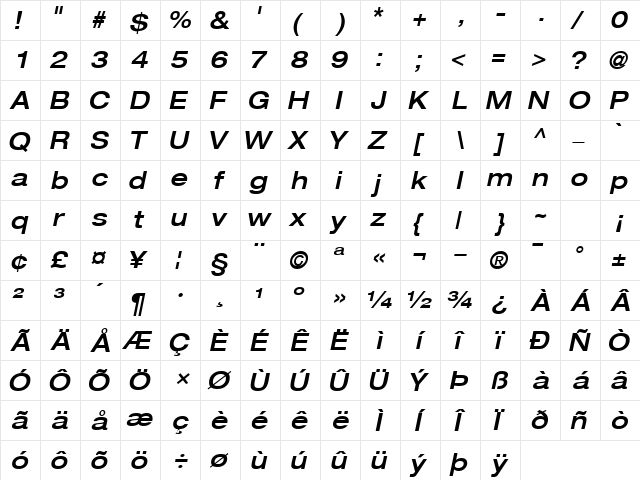
ContextRepriseMediumExpSSK Italic
Design Context for ContextRepriseMediumExpSSK Typeface
ContextRepriseMediumExpSSK is a composed and adaptable typeface that performs quietly and consistently across a wide range of design contexts. Its italic angle brings a sense of urgency and motion to the letterforms.